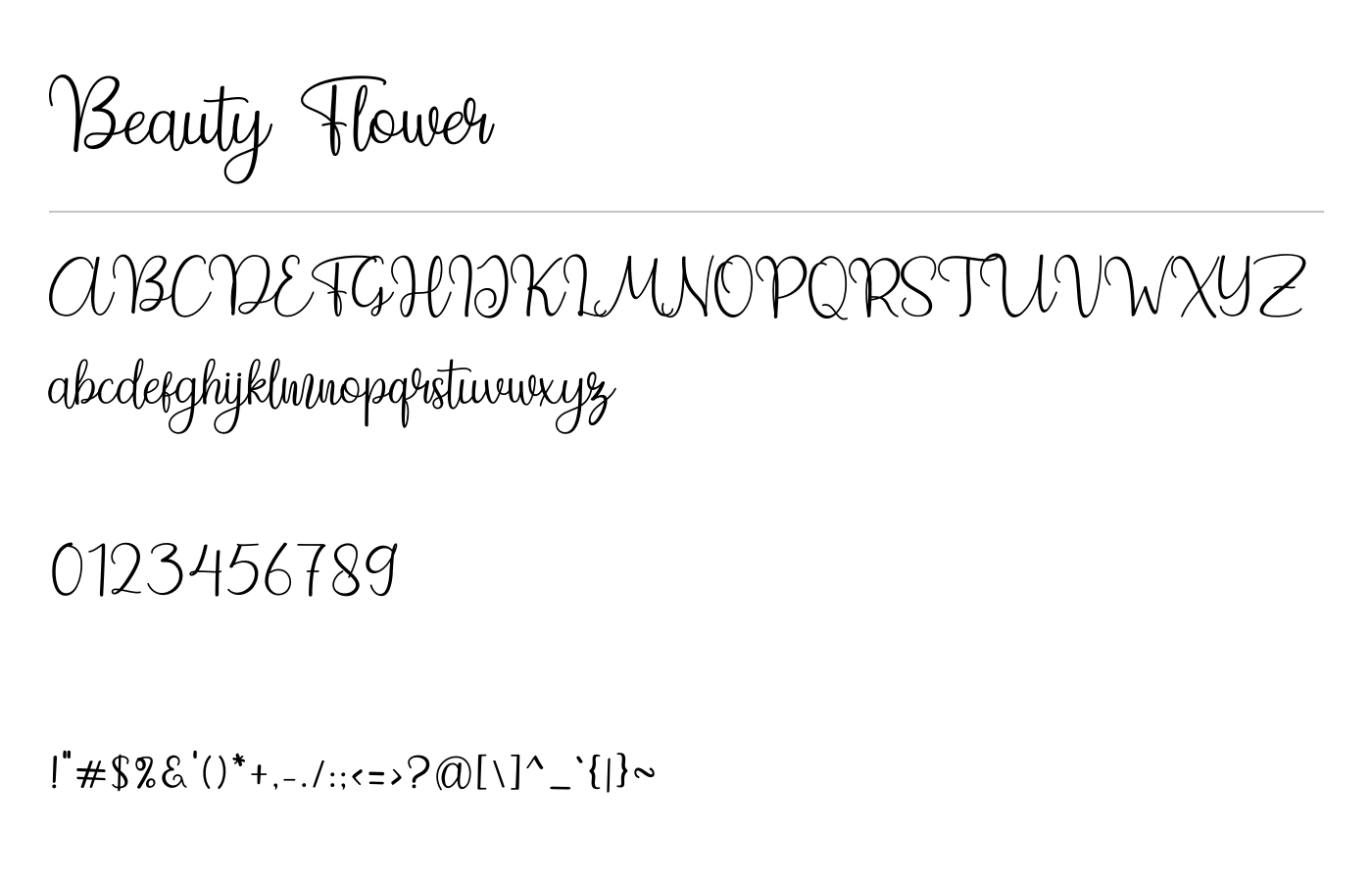
Beauty Flower is a delicate, handwritten script font featuring elegant, flowing letterforms with a light weight and graceful curves. Its refined style and airy spacing create a charming, feminine feel perfect for invitations, branding, and decorative uses where a soft, personal touch is desired. This font works beautifully for projects aiming to convey elegance, warmth, and creativity.
Beauty Flower Font
About Beauty Flower Font
| Font family | Beauty Flower Font |
| Designer | dianhaniff |